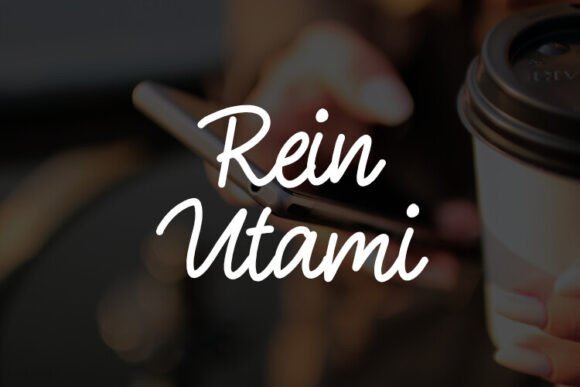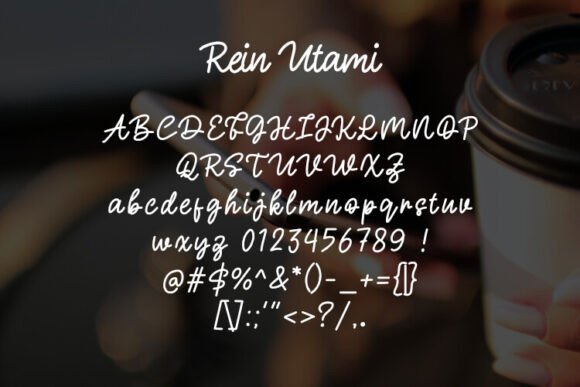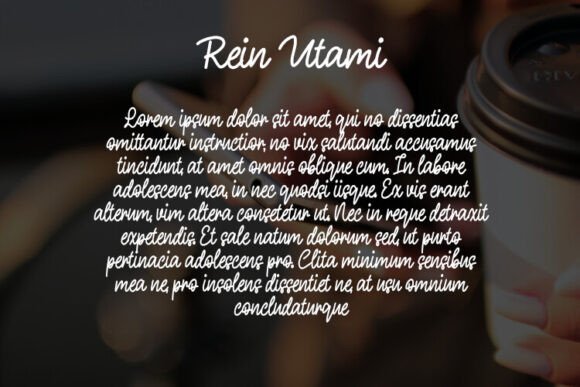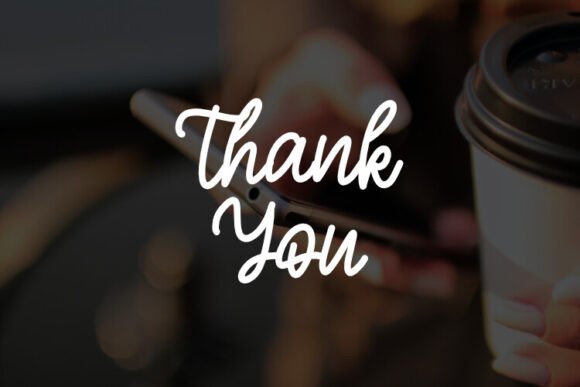
Rein Utami Font
About the Rein Utami Font
Introducing the Rein Utami Font, a beautifully crafted typeface designed to elevate your creative projects. Introducing “Rein Utami.” This incredibly versatile font is the perfect partner for fashionistas and creatives in the clothing industry, especially for t-shirt designs. Its adaptability to all software with an otf file makes it a handy tool for every designer’s toolkit. Suitable for all types of design, “Rein Utami” truly embodies the essence of a universal font.
Rein Utami’s strong, confident strokes make it ideal for headlines, logos, and short impactful text on packaging or posters. Its versatility extends to social media graphics and even short-form website copy, where its bold personality shines. However, its weight and character spacing aren’t optimized for extended body text or UI elements; smaller sizes lose legibility in longer paragraphs.
The font possesses a modern, slightly edgy personality. It pairs well with clean sans-serif fonts like Open Sans for a balanced contrast, or with a playful script like Pacifico for a more expressive combination. For a sophisticated feel, consider pairing it with a classic serif like Garamond.
Brands targeting a young, fashion-conscious audience or those with a bold, contemporary aesthetic will find Rein Utami particularly effective. Its versatility allows for adaptability across various design needs, while its inherent boldness prevents it from feeling bland or generic.
Rein Utami Font Usage Examples
Rein Utami Font Example